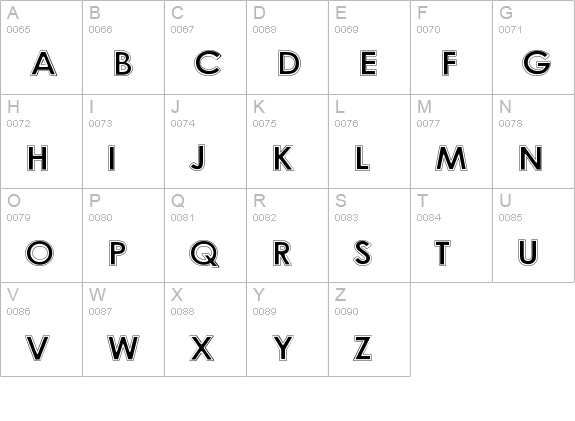
College Halo font is a bold and stylish typeface that evokes a sense of youthful energy and modernity. With its strong lines and sleek design, this font is perfect for creating eye-catching headlines, posters, and branding materials. The unique combination of classic collegiate lettering with a contemporary twist makes College Halo font stand out from the crowd. What sets College Halo font apart is that it is available for free download at FontsMarket.com. This means that you can easily access this dynamic font without any cost, making it a versatile and budget-friendly option for your design projects. Whether you're working on a school project, sports team branding, or promotional materials, College Halo font is sure to make a bold statement and leave a lasting impression.